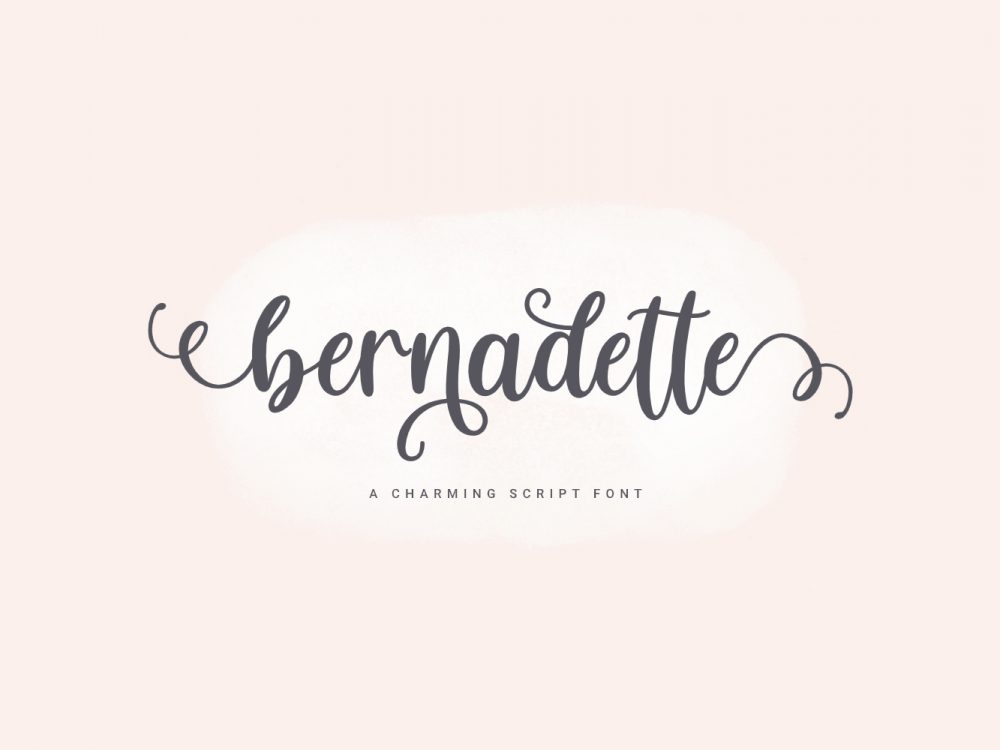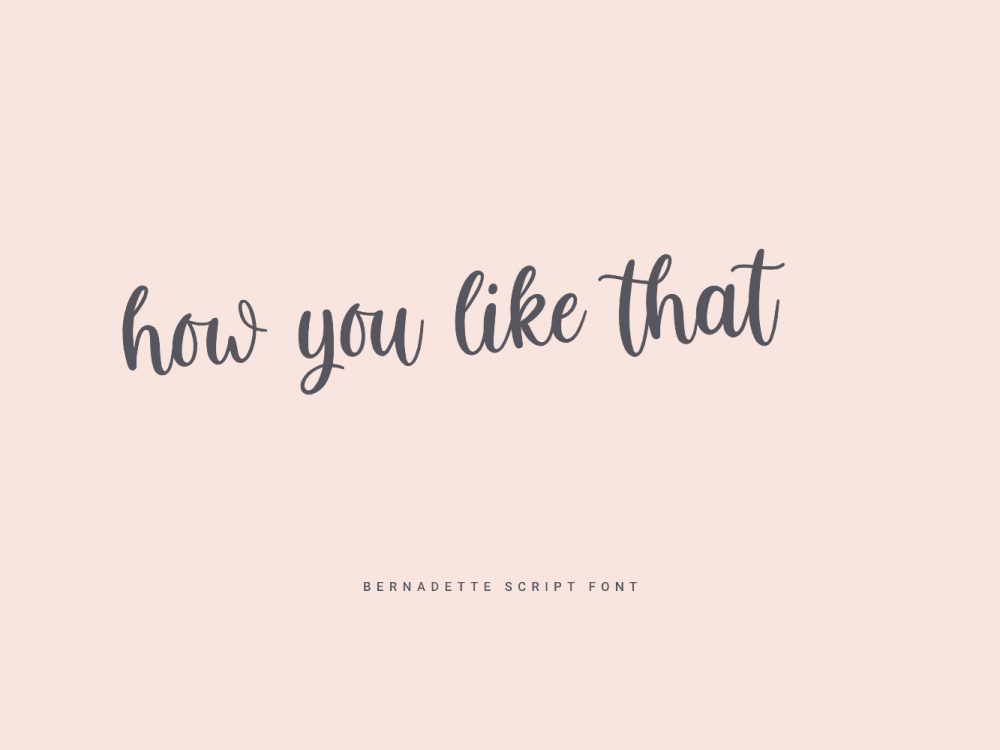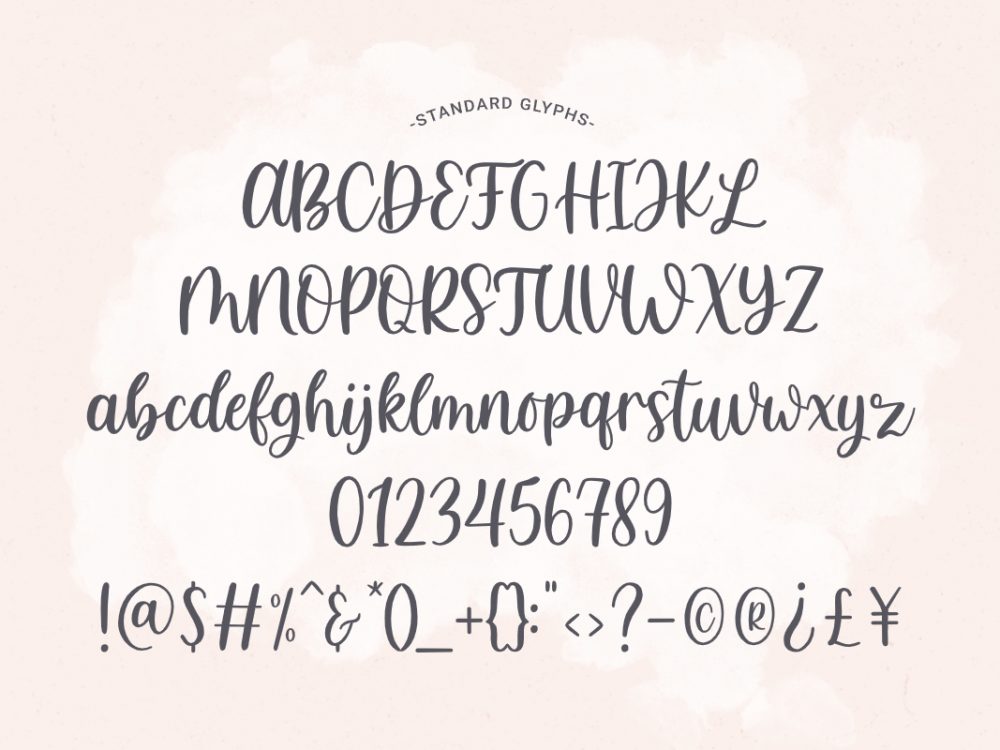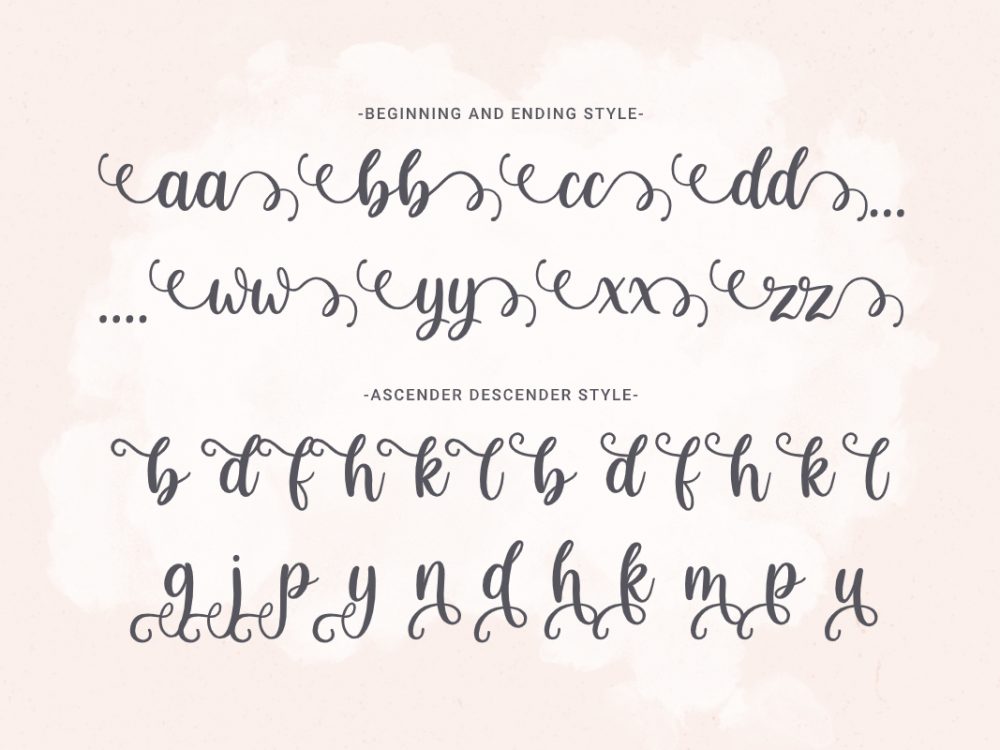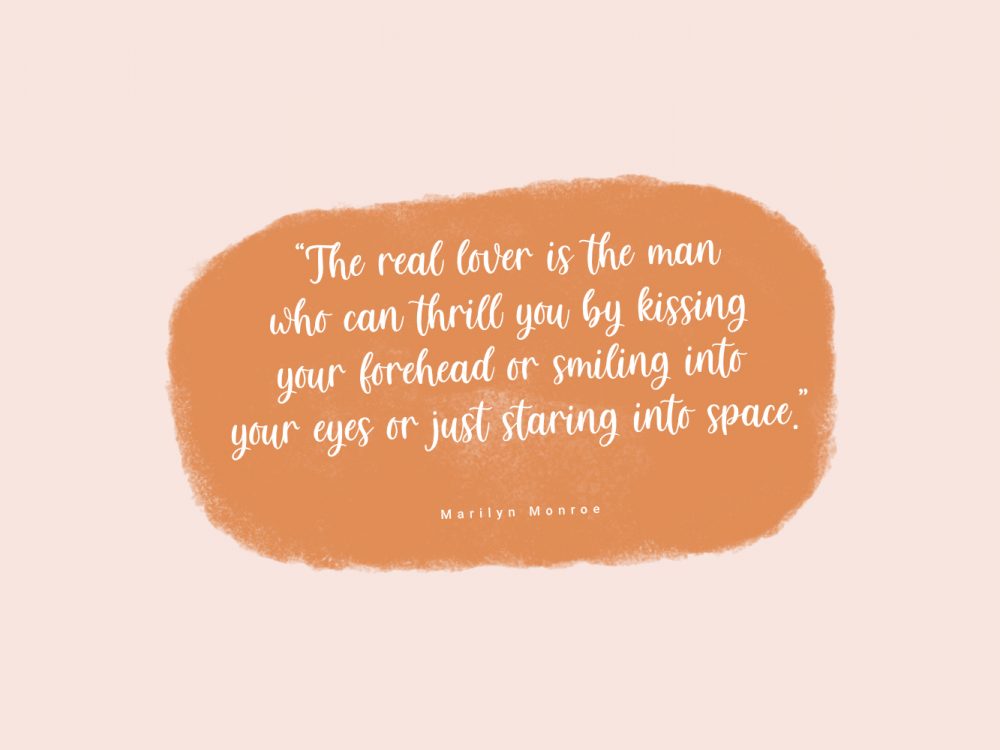
Bernadette Free Font
Bernadette Free Font is an interesting handwritten font that stands out for its elegant outline and modern style. This font will work very well for many of your design projects that require a quality script font. You can use this font to create memorable posters, wedding invitations, greeting cards, branding, flyers, t-shirt and pillow prints, and more. If you like it don’t forget to check out the full version.